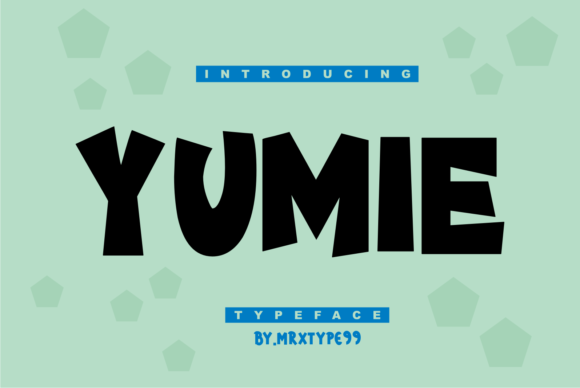
Behold the audacious and captivating Yumie Font, a visual symphony designed to leave an indelible mark on your creative endeavors. Crafted by the visionary font maestro, MRXTYPE, Yumie is a display font of unparalleled boldness and character. It exudes an aura of confidence and strength, making it the perfect choice for those seeking to elevate their projects with a distinctive typographic flair.
Step into the realm of visual enchantment as you witness Yumie's thick, captivating letters command attention on any platform. Its strong visual impact is an instant game-changer, transforming ordinary designs into captivating masterpieces. With Yumie, you possess the power to make your creations leap off the screen, captivating audiences with their irresistible charm.
Unleash your creativity and delve into the boundless possibilities that Yumie offers. Its versatility is a testament to its adaptability, effortlessly complementing a diverse range of projects. From eye-catching logos that leave a lasting impression to captivating social media posts that ignite engagement, Yumie is your ultimate creative companion.
Embrace the newspaper text aesthetic with Yumie's enchanting allure. Its thick strokes and bold personality evoke the nostalgia of classic newsprint, adding a touch of timeless elegance to your designs. Whether you're crafting digital headlines that demand attention or creating print materials that exude sophistication, Yumie is the font that will make your words resonate with readers.
Experience the transformative power of Yumie and witness how it effortlessly elevates your designs to new heights. Its bold presence commands attention, while its intricate details add a touch of sophistication. Prepare to be mesmerized as your projects take on a life of their own, leaving a lasting impression on all who encounter them.
Welcome Yumie into your creative arsenal and embark on a journey of limitless possibilities. Let its bold strokes and confident demeanor elevate your designs to unprecedented heights. Prepare to leave an indelible mark on the world, one captivating creation at a time.